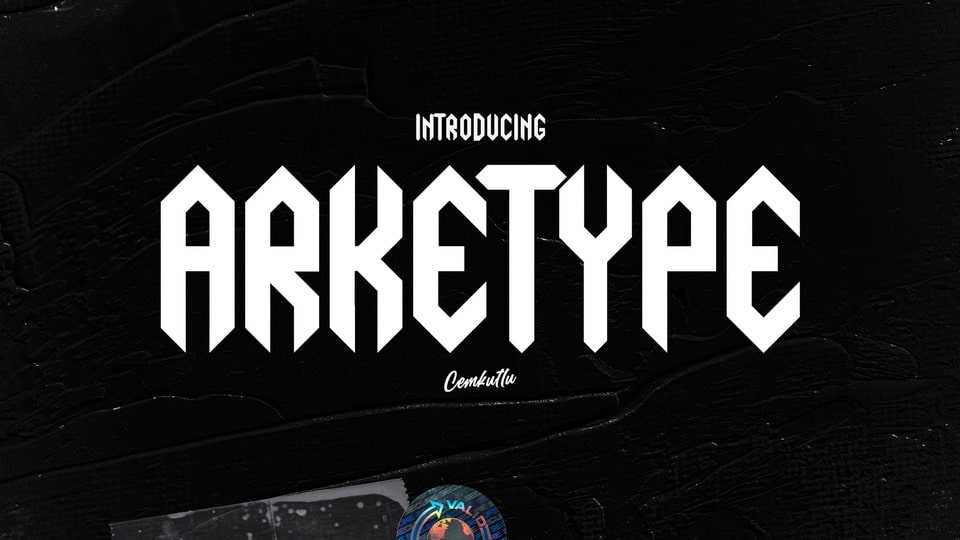
Download Arketype font, an angular, blocky and sharp display typeface. With 4 styles, Arketype font is intended be used for posters, headlines, prints and so on.
Designer: Cem Kutlu